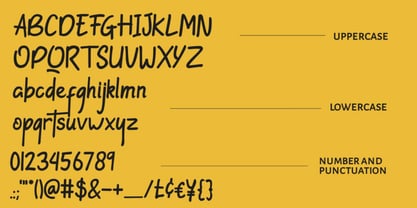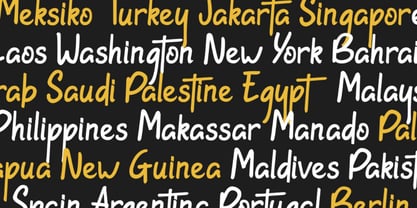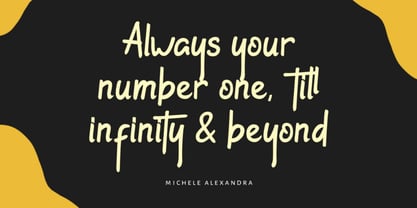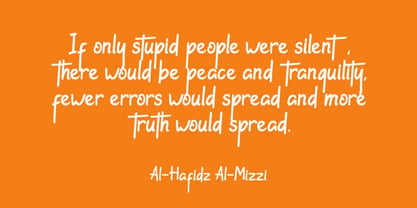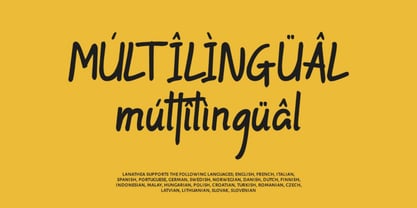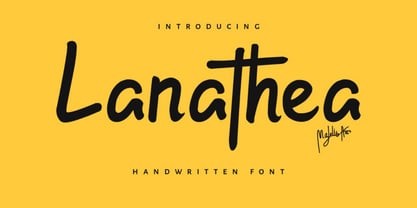
Lanathea
The Lanathea Font Family was designed by Fikhry Mus Pratama and published by Majelis Art. Lanathea contains 1 styles. More about this family
Lanathea font is made from colored marker carvings that create curves on each letter. This font is perfect for entrepreneurs to make banners and logos that are displayed in front of their stores, And it will be a uniqueness, advantage and benefit for entrepreneurs. This font is also very suitable for use on book covers, animated film titles, and various types of foreign products.
- Uppercase and lowercase
- Numeral and Punctuation
- Multilingual support
- A little addition from Ligature
Designers: Fikhry Mus Pratama
Foundry: Majelis Art